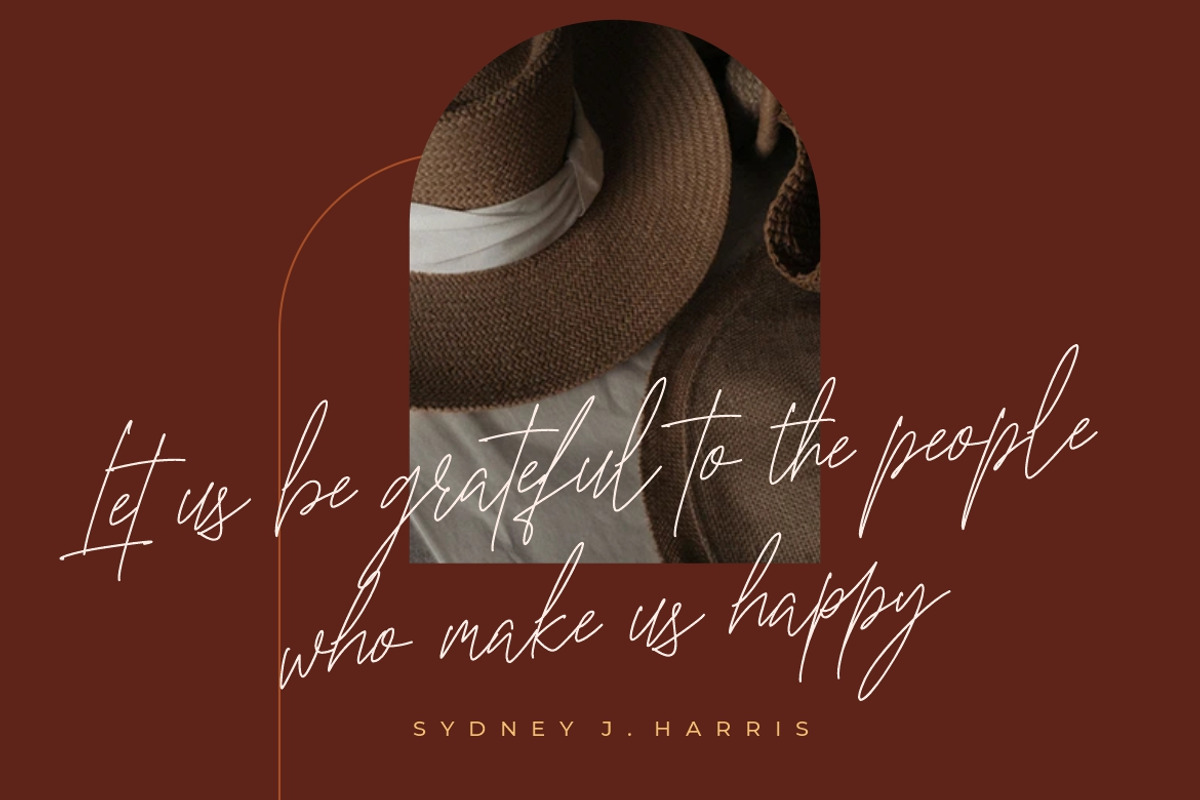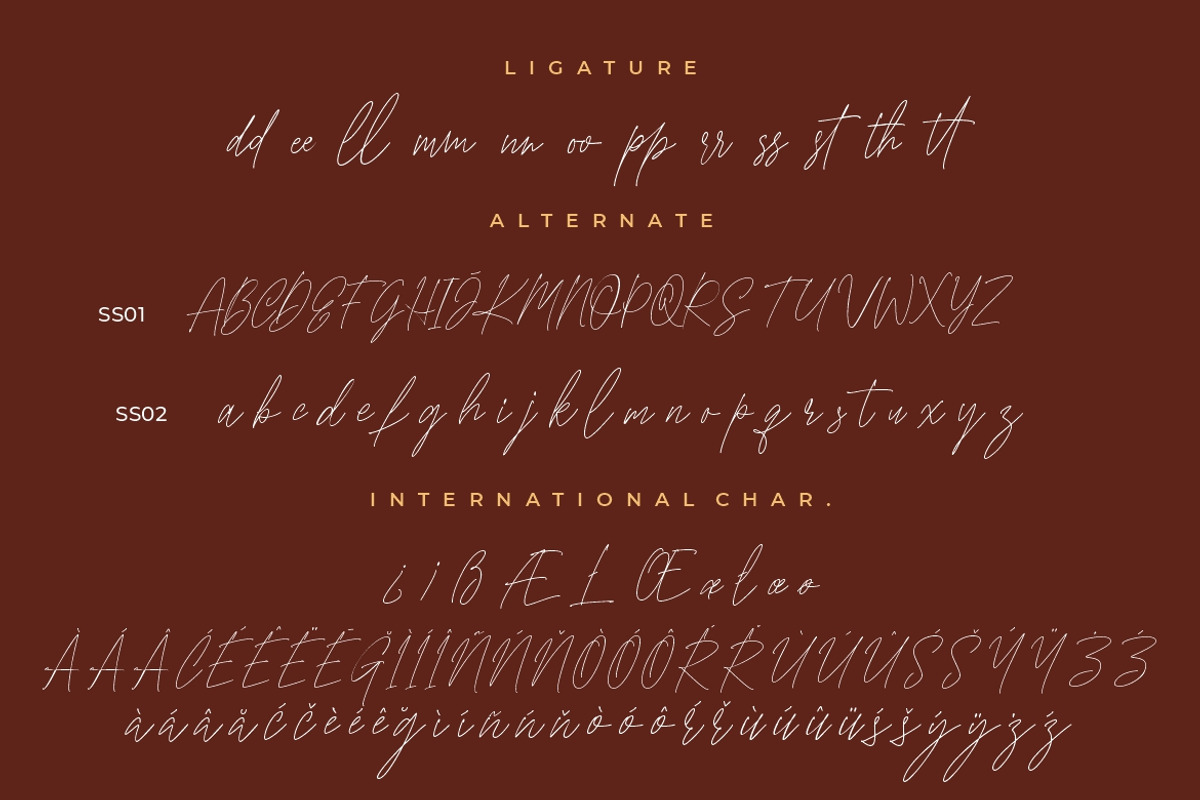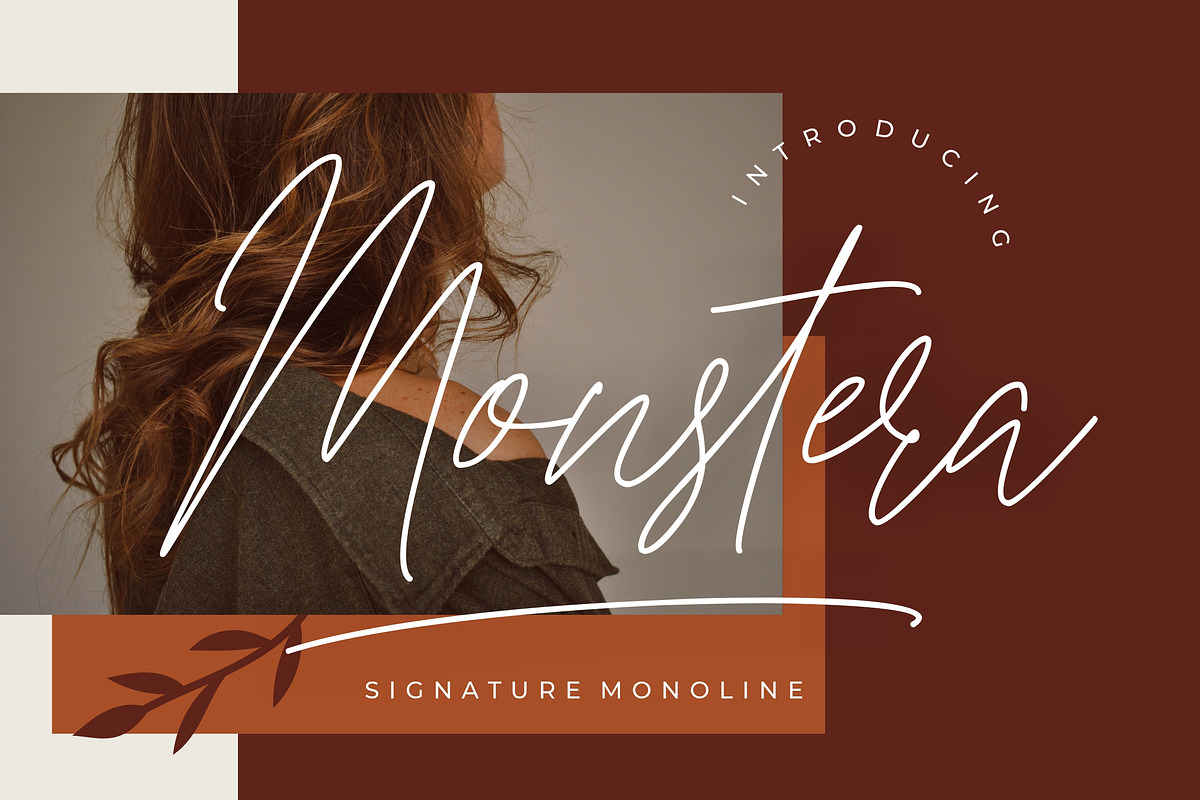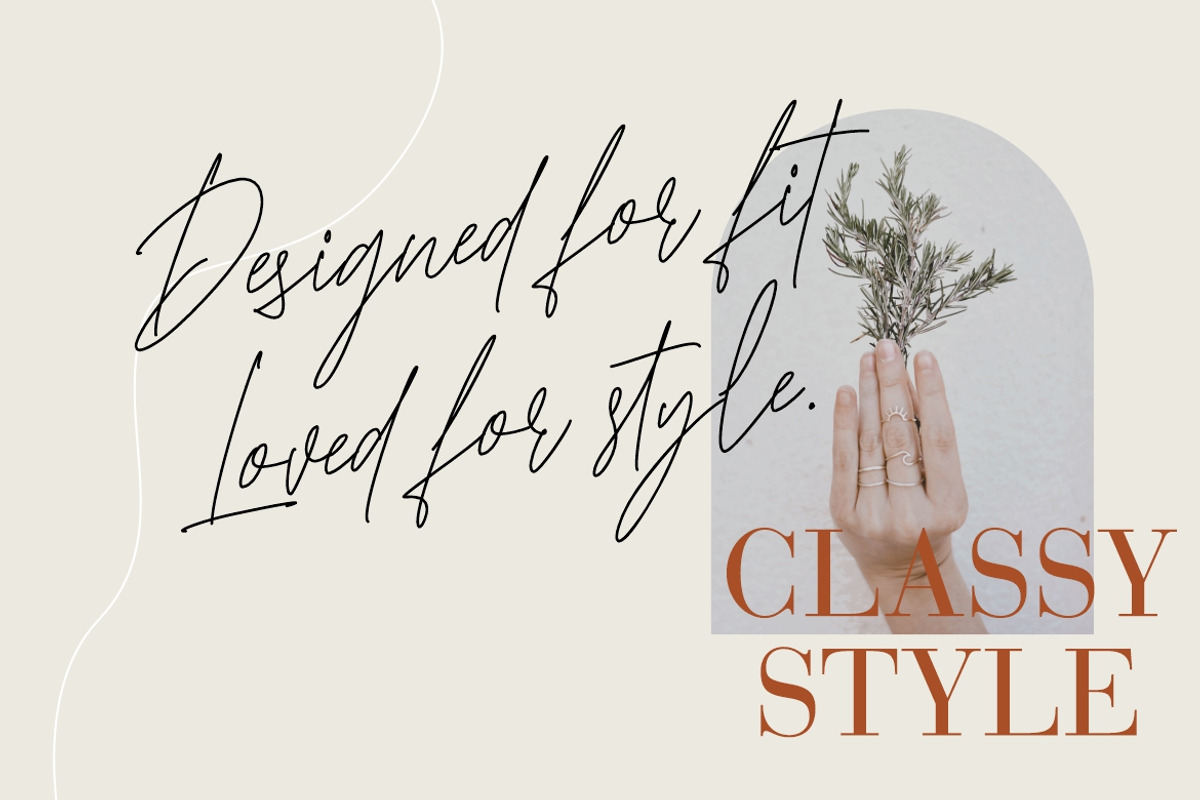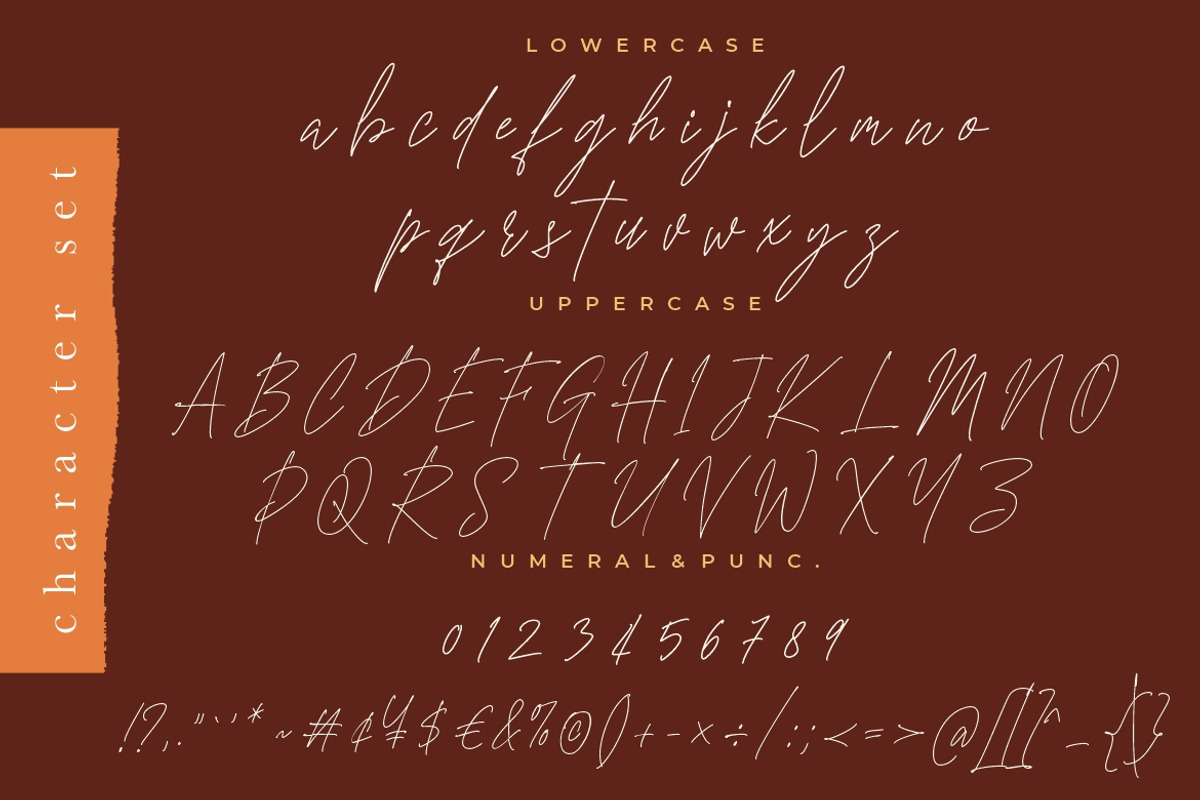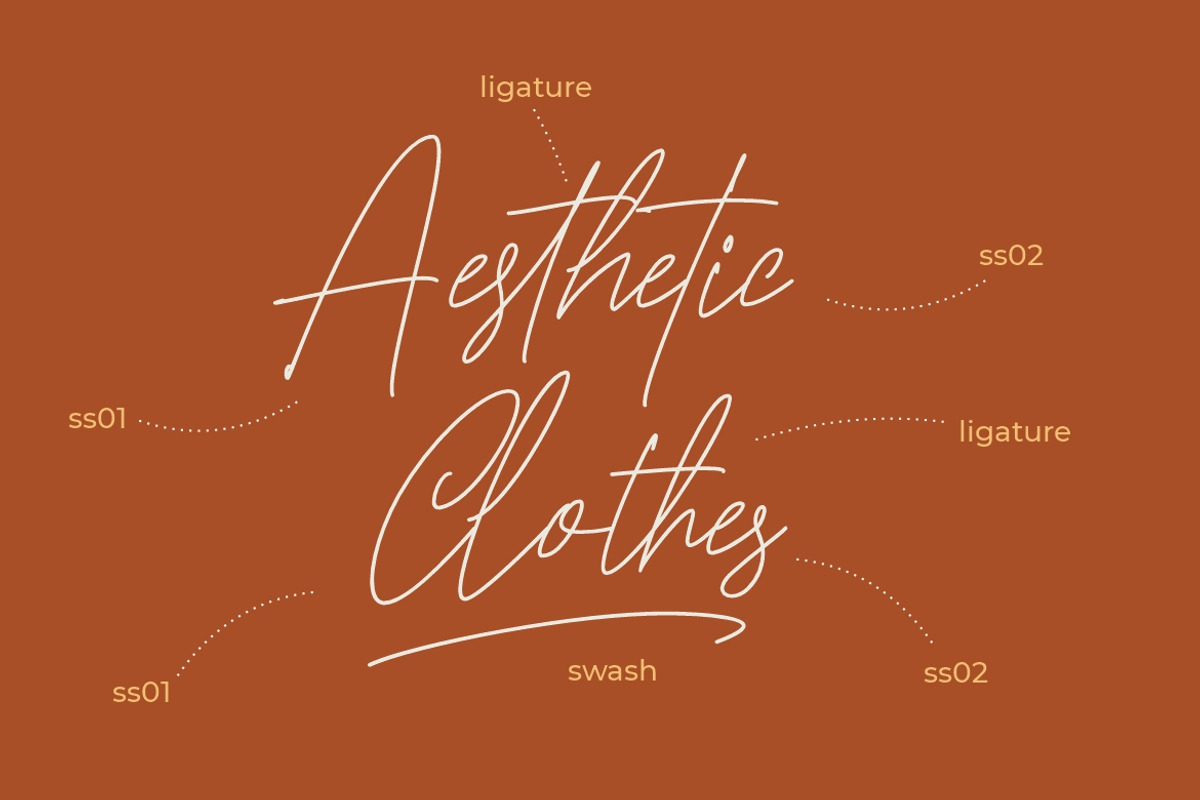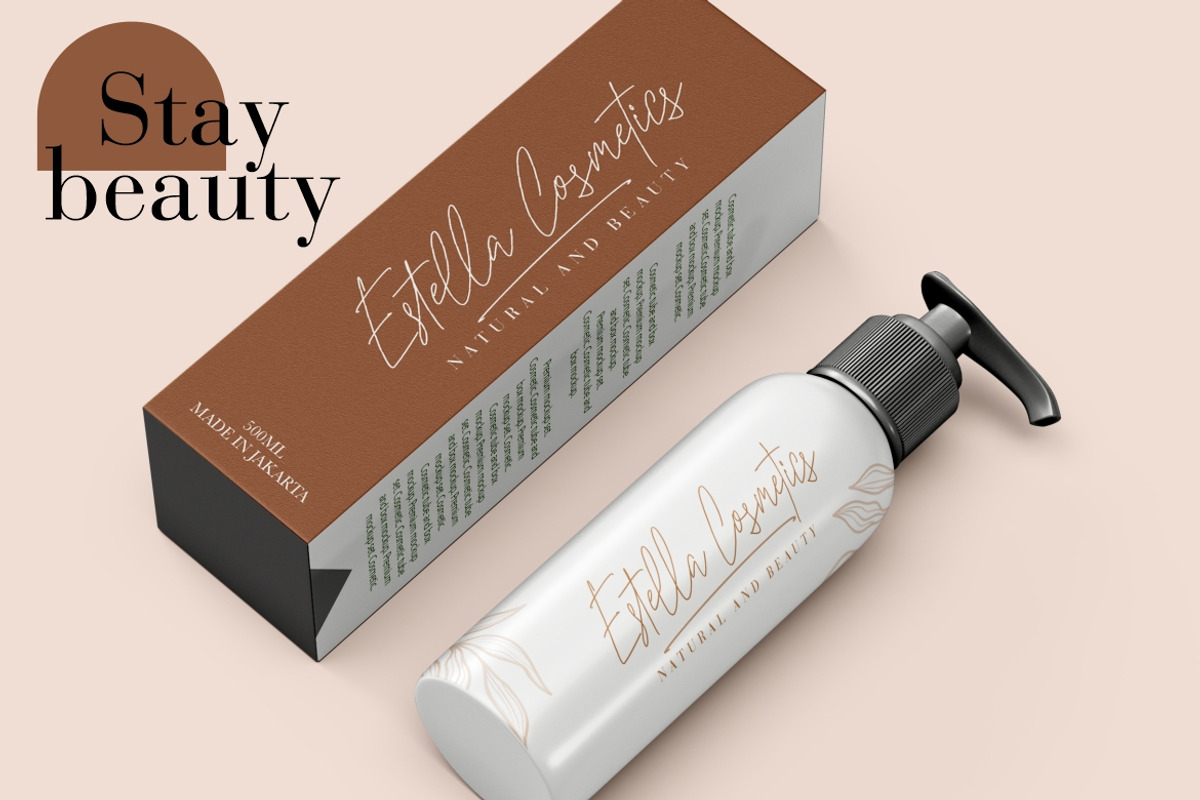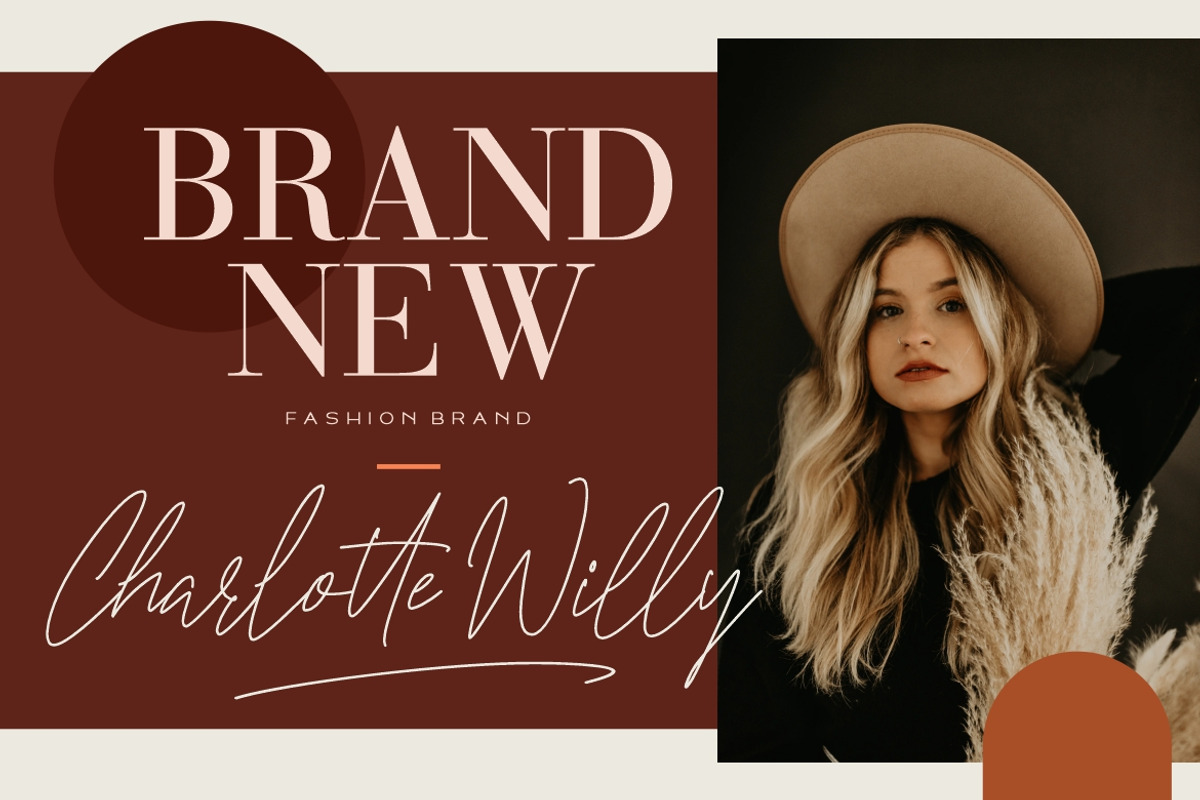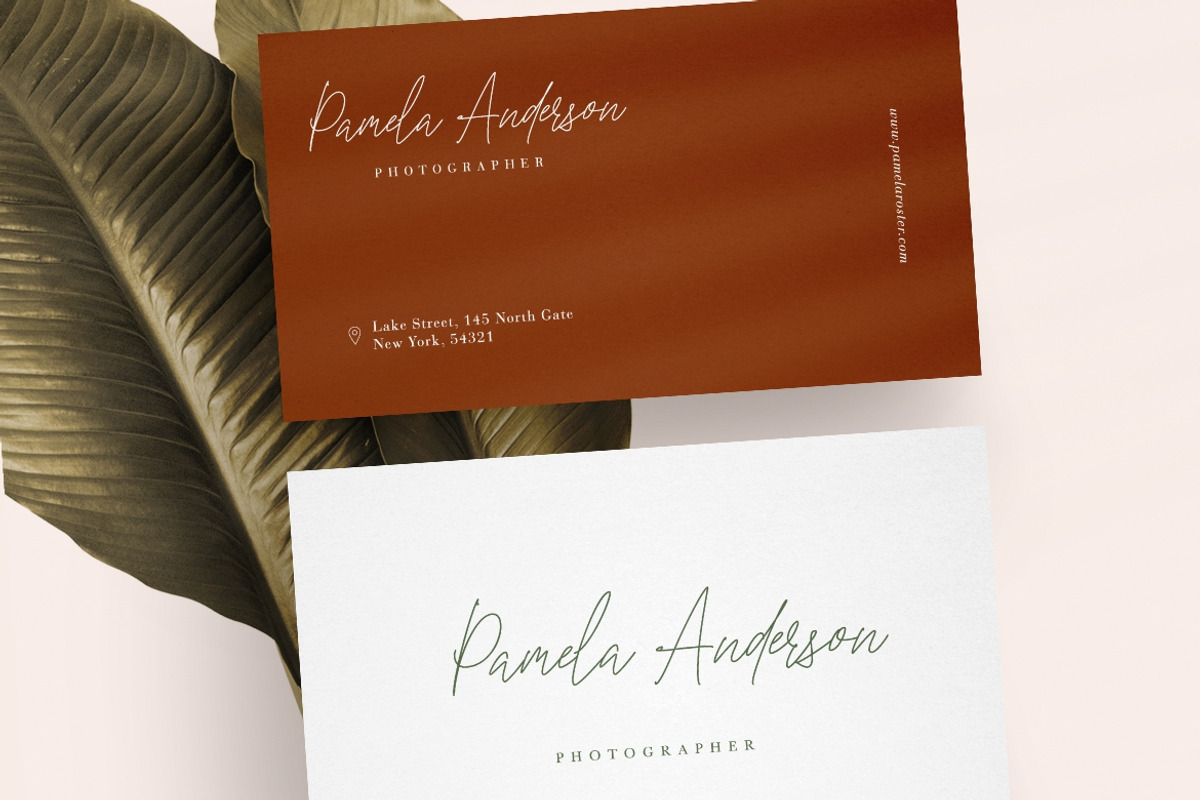
Monstera Signature Monoline
Monstera is signature script font with monoline style that looks classy and elegant.
Monstera is perfect for branding projects, logo, wedding designs, social media posts, advertisements, product packaging, product designs, label, photography, watermark, invitation, stationery and any projects that need handwriting taste.
- Ligature, Swashes & Alternate